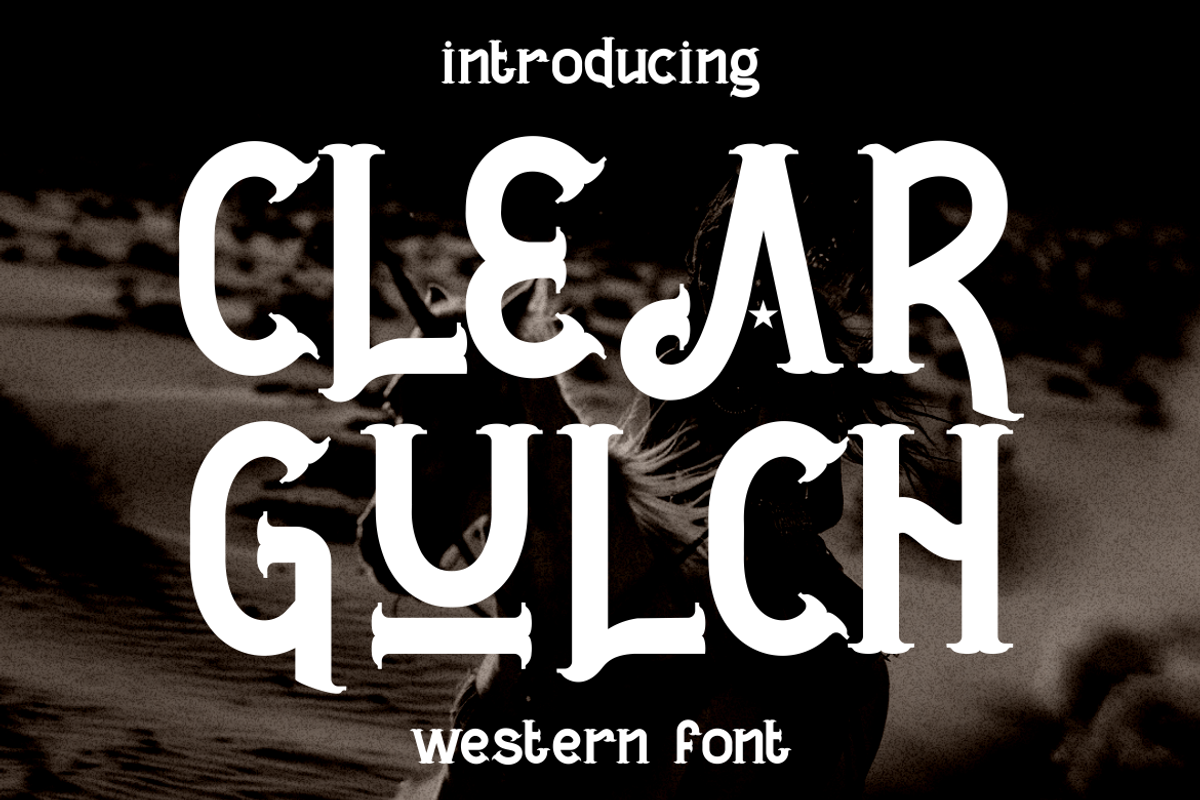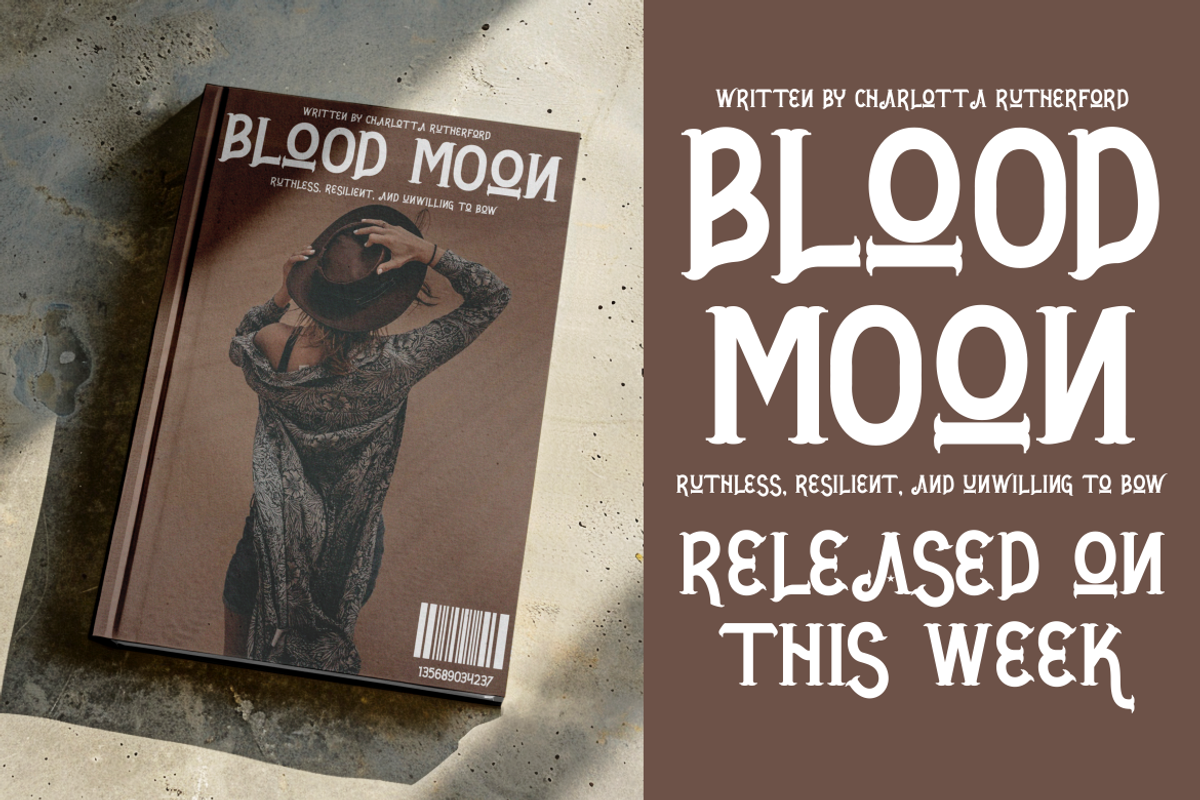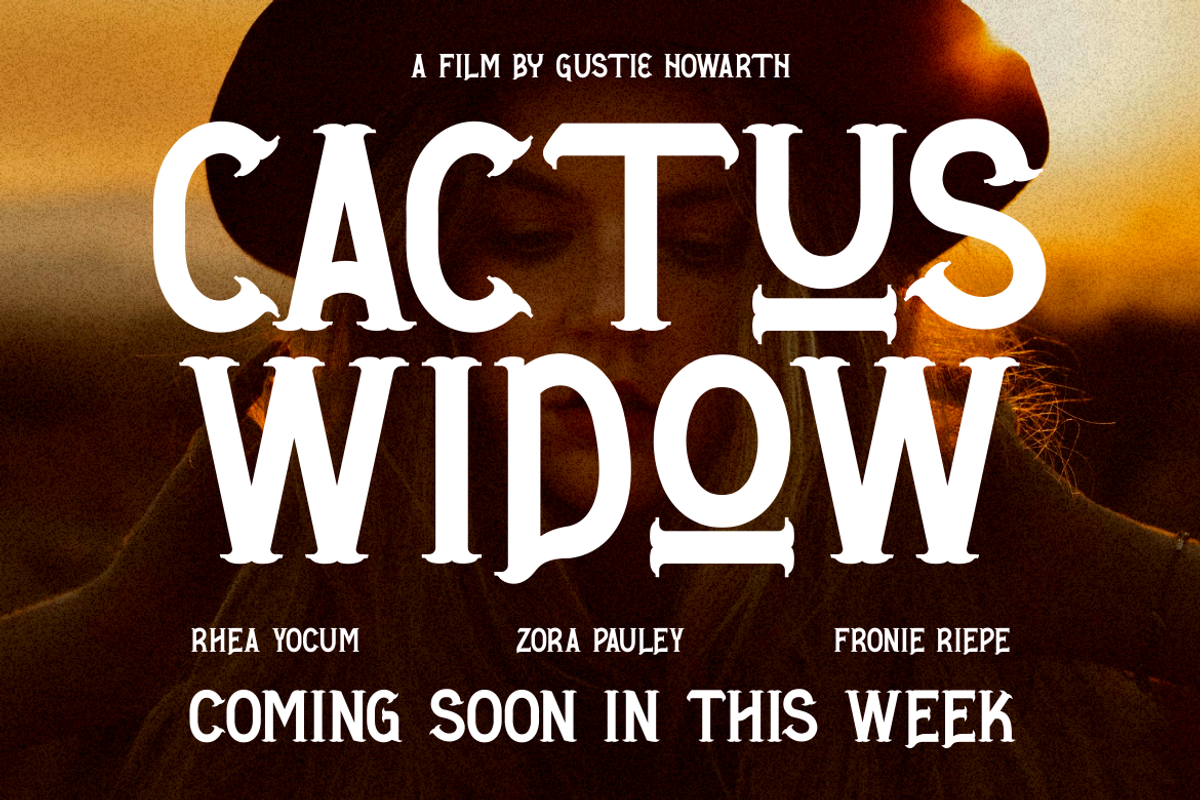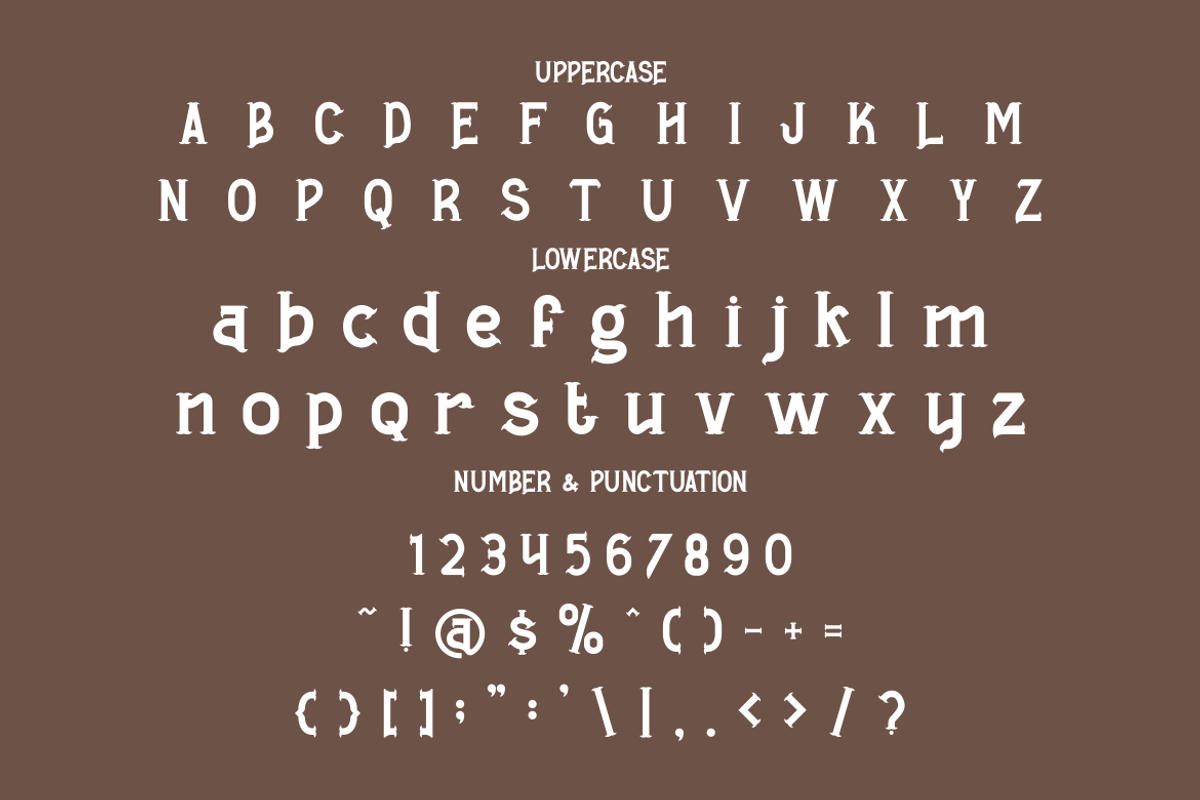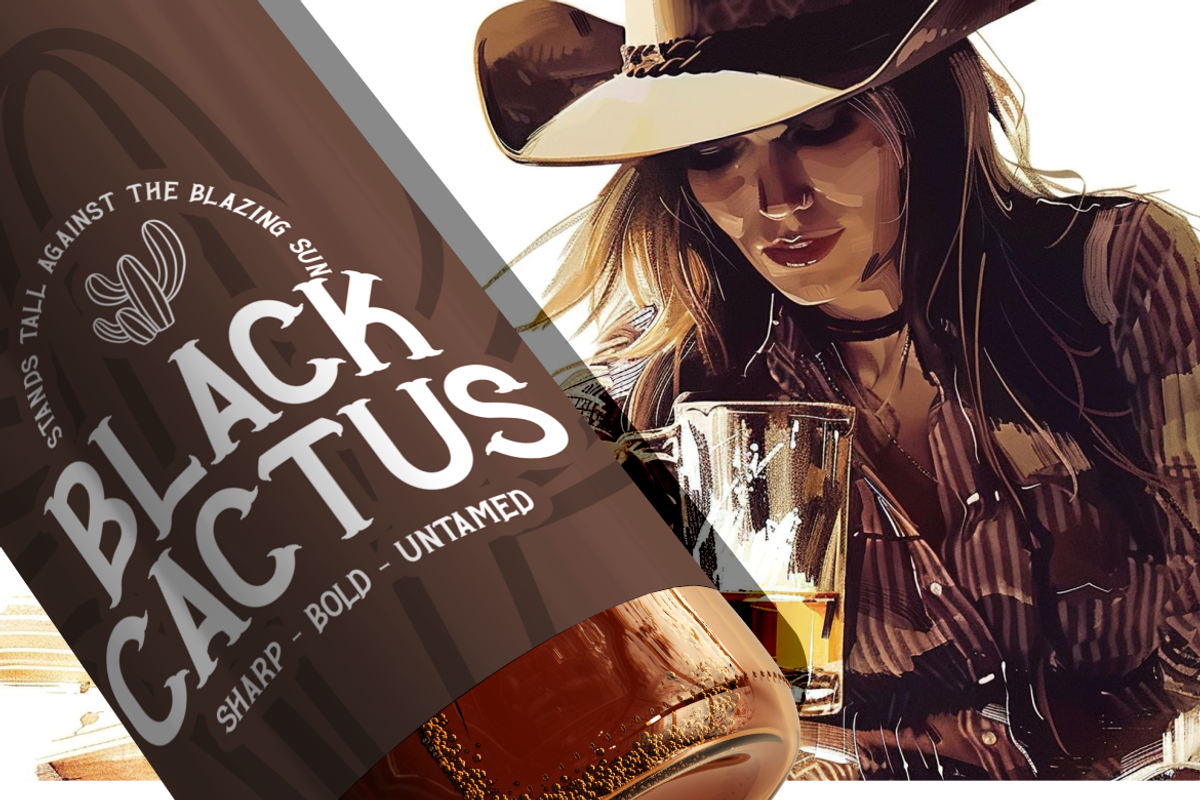
Clear Gulch Western Font
Clear Gulch Western Font captures the rugged charm of the Old West with bold letterforms that balance strength and style. The characters feature tall, sturdy shapes with striking ornamental serifs that evoke a vintage cowboy atmosphere. Each curve and edge is carefully designed to create a timeless western aesthetic, making the font perfect for projects that need a strong identity. Its visual rhythm blends classic elegance with rustic authenticity, ensuring Clear Gulch Western Font stands out in any creative work.
This font is ideal for use in branding, logos, posters, packaging, film titles, and book covers. It adds a sense of history and boldness to every design, while maintaining readability and a distinctive personality. Clear Gulch Western Font is not only versatile but also highly expressive, suitable for invitations, stickers, advertisements, and magazine layouts. Designers who want to combine vintage western spirit with professional polish will find it an essential choice for impactful visual storytelling.